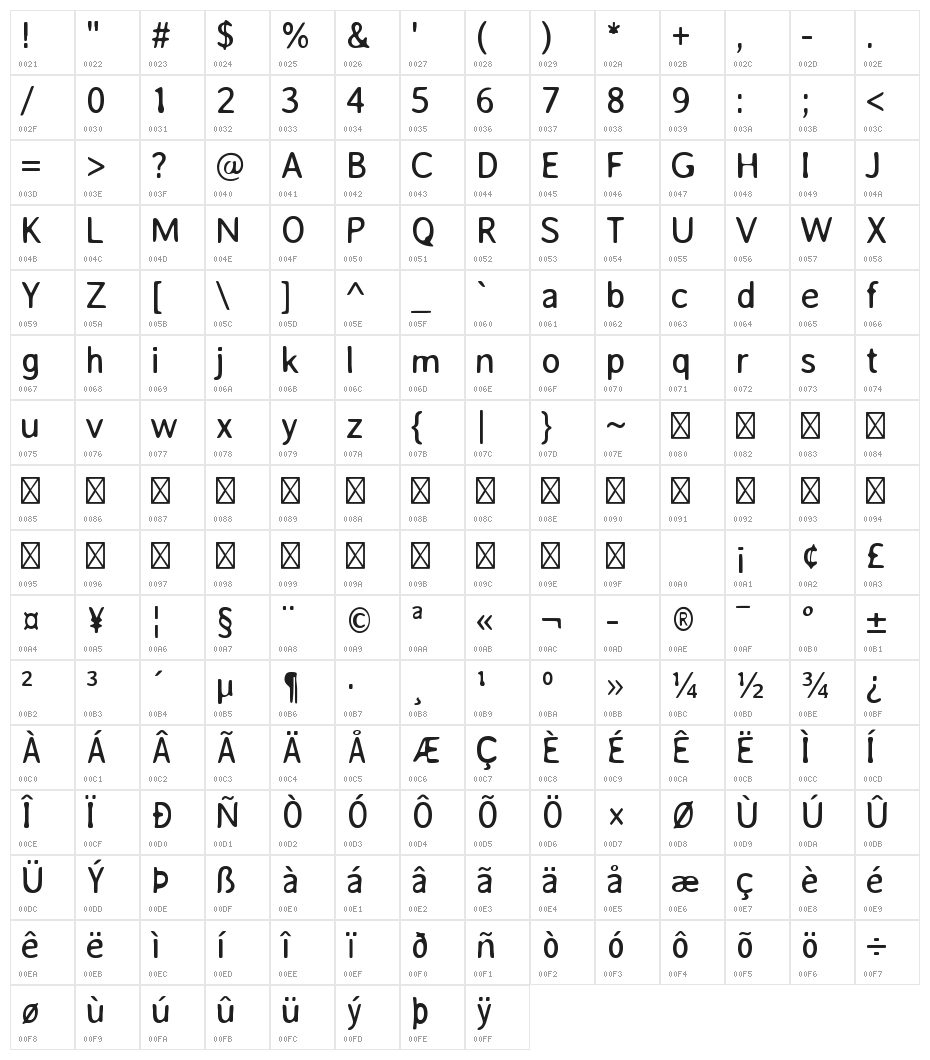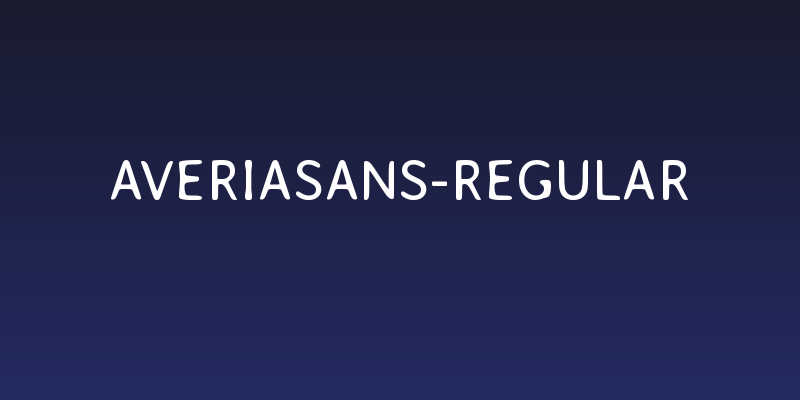
AveriaSans-Regular Font
AveriaSans-Regular Description
This font features a smooth, rounded style with a friendly and approachable appearance. The characters are evenly spaced, providing a clean and legible look. The strokes are consistent in width, giving it a uniform and balanced feel. It includes a full set of uppercase and lowercase letters, numerals, and a variety of punctuation marks and special characters. The overall design is simple yet effective, making it versatile for various applications.